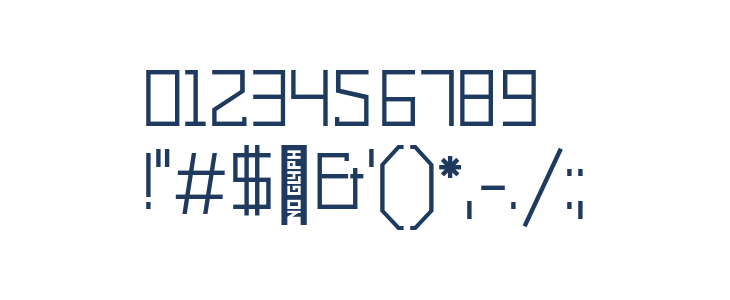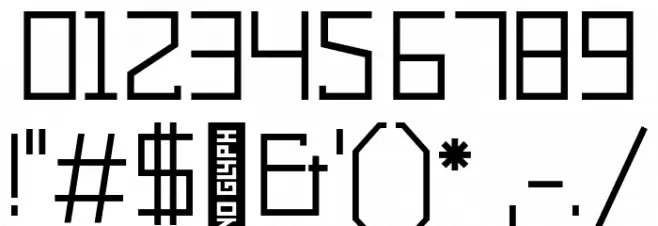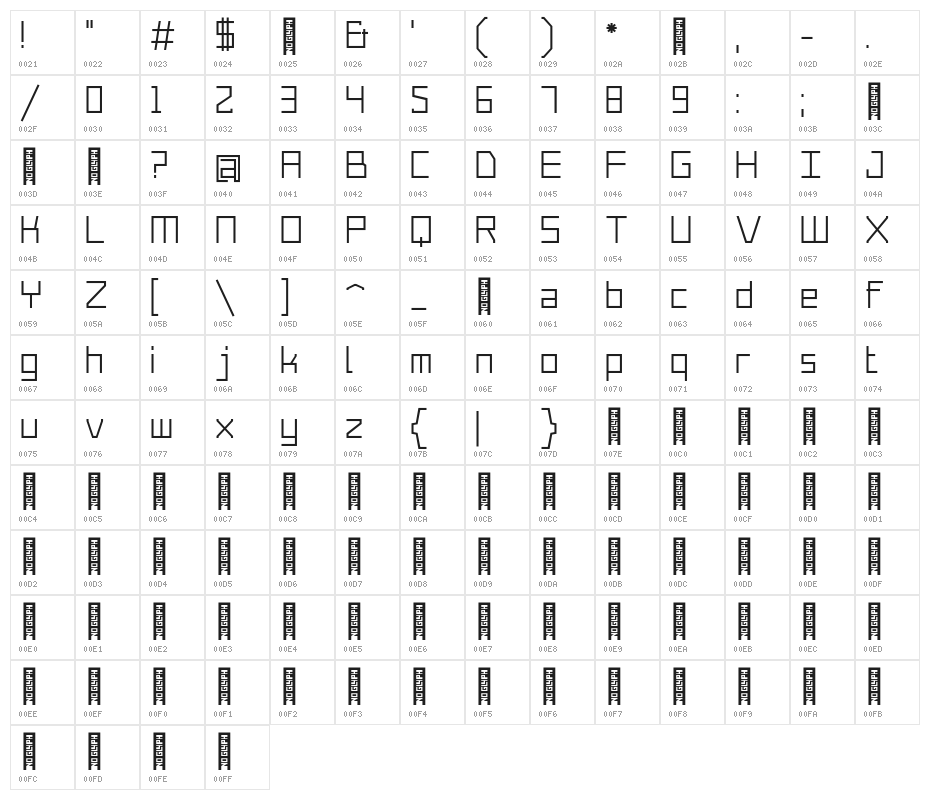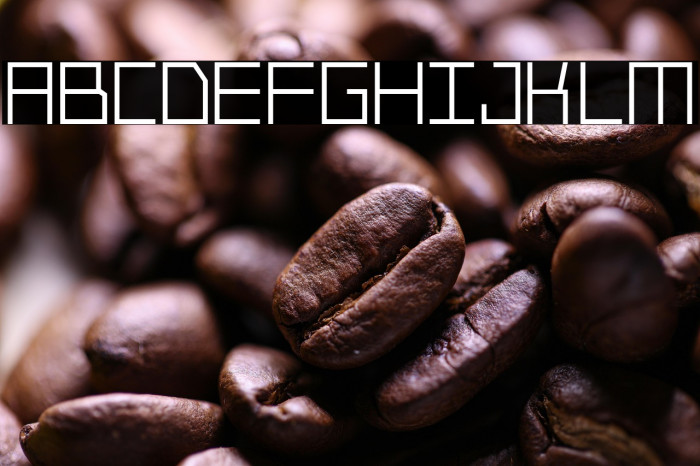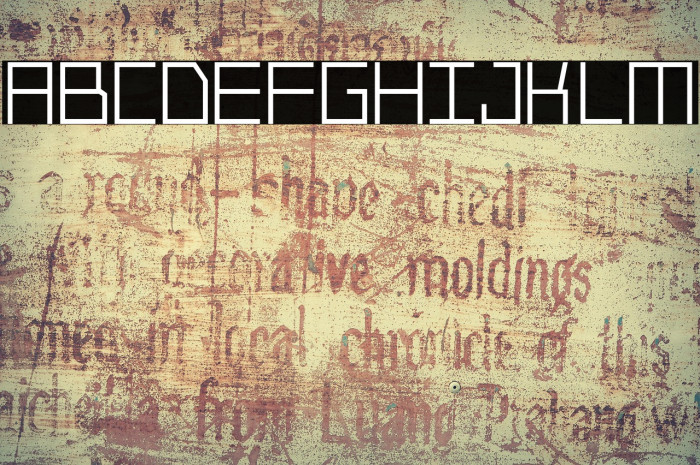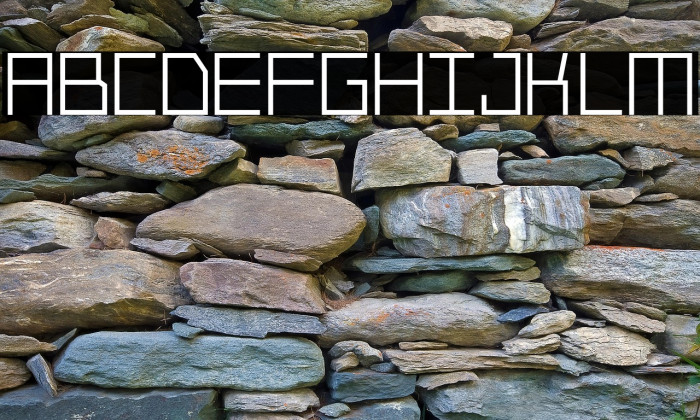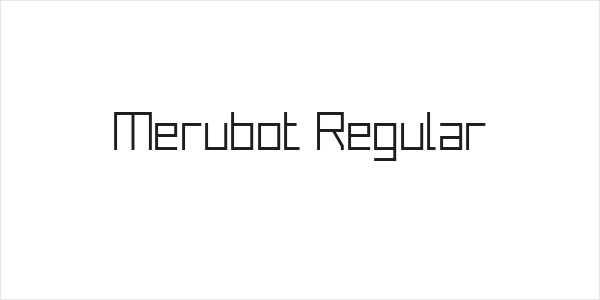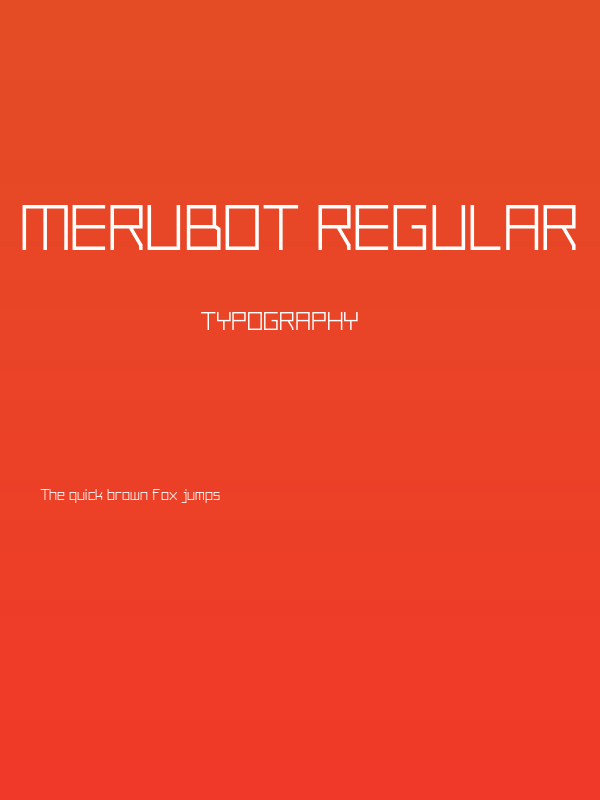
Merubot Regular Font
Merubot Regular Description
This font features a geometric and modern design with a distinct robotic aesthetic. The characters are constructed with straight lines and right angles, giving it a structured and mechanical appearance. The uppercase and lowercase letters maintain a consistent height, contributing to a uniform look. The numerals and special characters follow the same design principles, ensuring cohesion across all glyphs. The font's style is minimalistic, with no additional embellishments or curves, emphasizing clarity and precision. This makes it suitable for digital interfaces and futuristic themes.